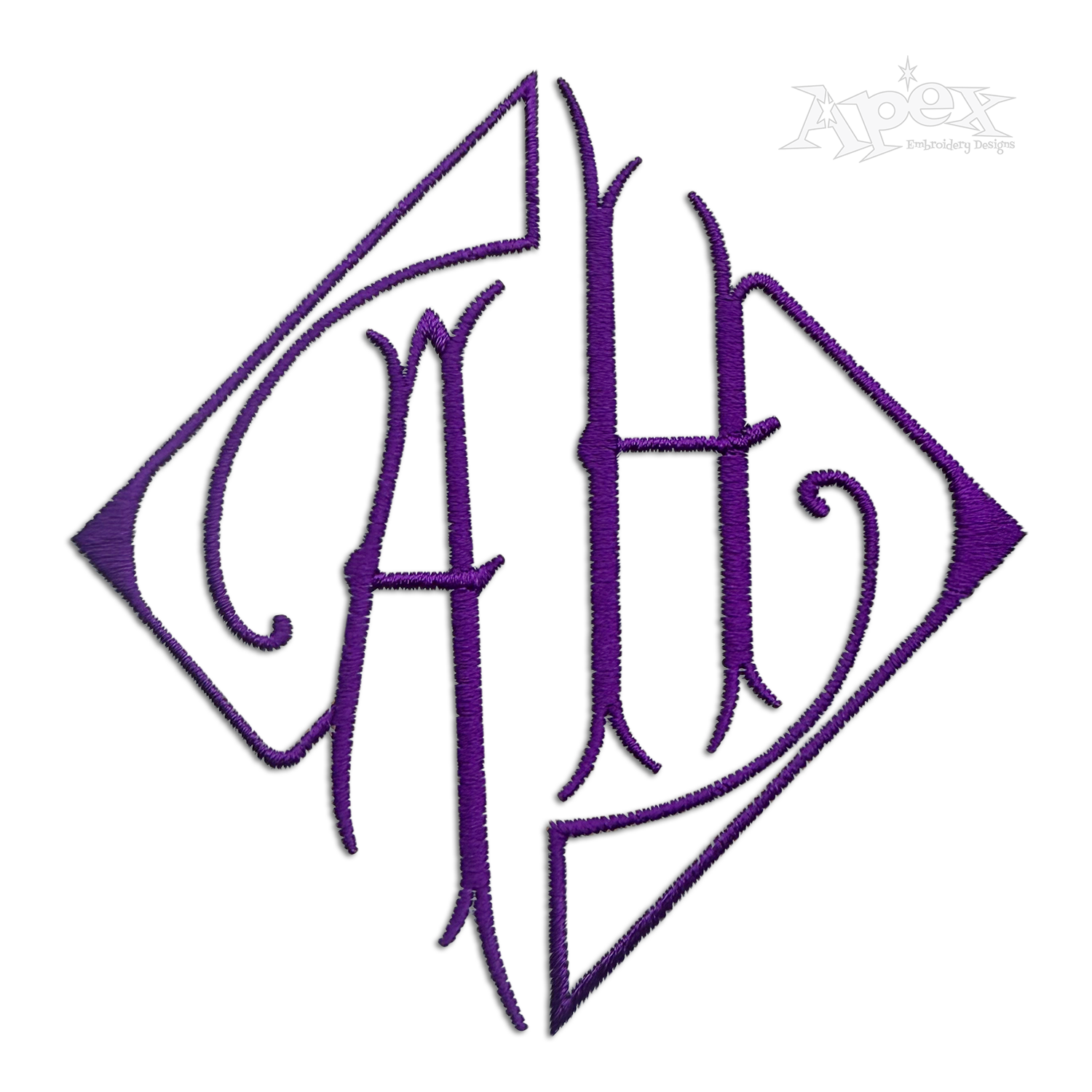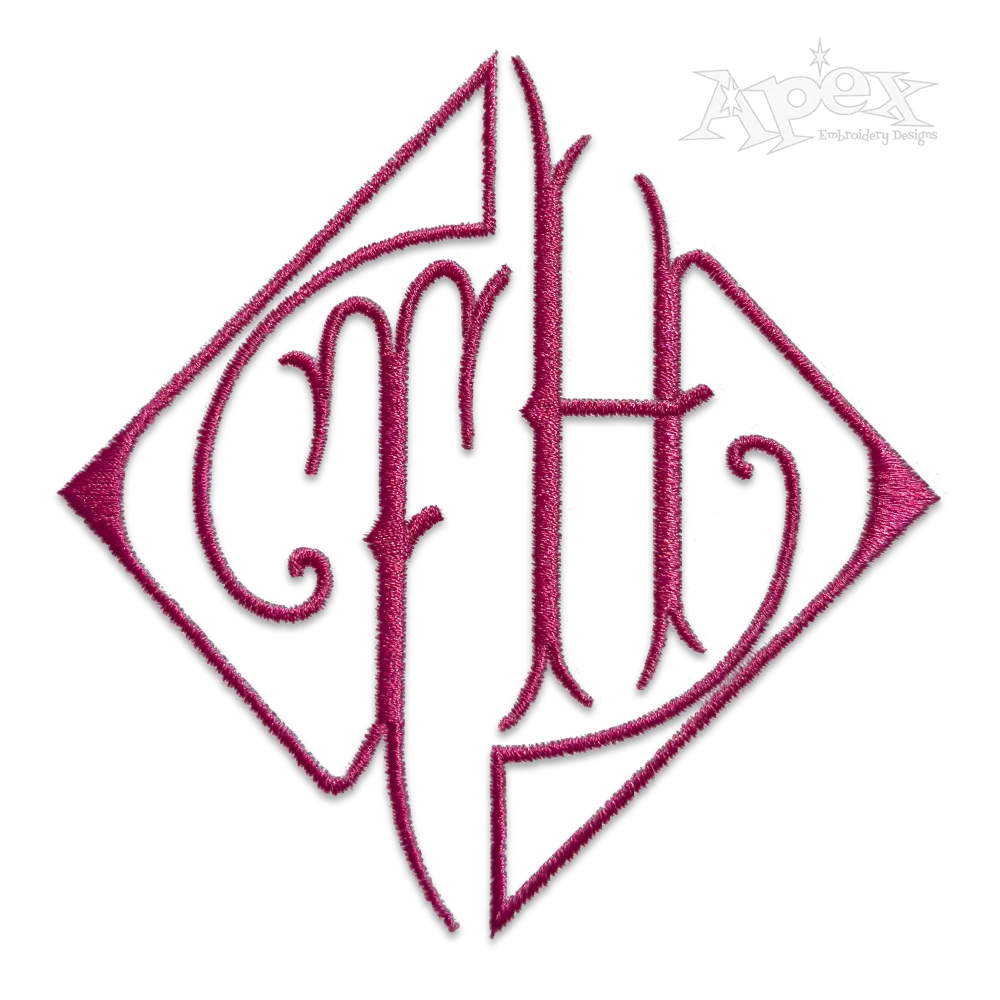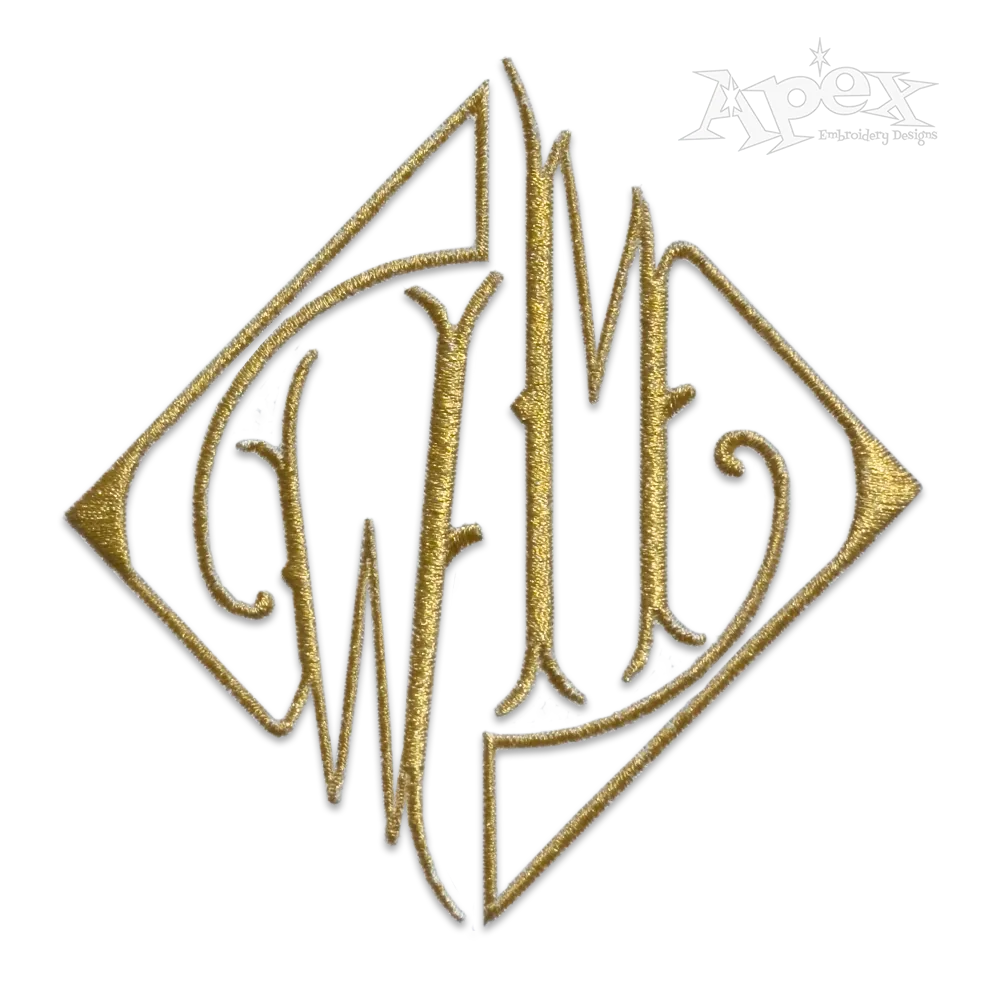
Triangle Two Monogram Embroidery Fonts
When digitizing the Triangle Two Monogram, our studio drew inspiration from the sharp geometry of vintage art deco jewels intertwined with the soft, flourishing tendrils of classical calligraphy. There is a captivating tension in framing sweeping, graceful swirls within a structured triangular silhouette. As your embroidery needle glides across fabric, these contrasting elements harmonize?transforming negative space into an exquisite tapestry of heirloom-grade luster. Designed for discerning makers who appreciate both modern architectural balance and timeless romance, this monogram brings an unmistakably bespoke flair to personalized keepsakes and refined home textiles.
Project Ideas for Triangle Two Monogram
The distinctive angular architecture and interior flourish of this monogram lend themselves to both tailored and opulent fabrications:
- Luxury Table Linens: Frame dinner parties with crisp mitered-corner linen napkins and dramatic table runners featuring a single, striking initial.
- Bespoke Resort Wear: Embroider crisp linen button-downs, swim cover-ups, and sun hats for an upscale, personalized getaway wardrobe.
- Heirloom Bedding & Bath: Elevate Egyptian cotton duvet covers, euro shams, and plush Turkish bath towels with a bold, centered crest.
- Bridal & Milestone Keepsakes: Accent silk bridal robes, ring pillows, or champagne tote bags for unforgettable, personalized gifting.
- Canvas Weekend Totes: Add an unmistakable mark of sophistication to heavy cotton canvas duffels, tennis totes, or boat bags.
Because of its unique geometric apex, the Triangle Two Monogram naturally anchors fabric surfaces with clean architectural lines:
- Corner Diagonal: Angle the monogram 45 degrees into the bottom right corner of linen cocktail napkins or handkerchiefs for a classic bespoke presentation.
- Center Chest Crest: Position on the left chest of tailored shirts, robes, or knit vests, keeping the peak of the triangle aligned directly beneath the collarbone.
- Pillow Centers: Float the 4-inch motif in the dead center of a boudoir cushion or pillow sham, letting the open swirls breathe against textured linen or velvet.
- Flap & Hem Accents: Stitch neatly onto cosmetic bag flaps, guest towel borders, or the bottom hem of a crisp linen throw.
Triangle Two Monogram Craft & Letterform Details
True embroidery elegance is defined by how light interacts with thread, and our digitizing for the Triangle Two Monogram honors that craft at every turn. We meticulously mapped the column widths of every curling flourish to ensure smooth, continuous stitch flow without unseemly jumps or stitch crowding. The outer perimeter creates the crisp illusion of a clean triangle, yet the interior reveals voluptuous, undulating satin curves that taper to needle-fine points. Rich underlay stitching supports each column from beneath, preventing fabric puckering and allowing the glossy top thread to catch the light like polished gemstone facets. Whether stitched in tone-on-tone silk or gleaming metallic thread, each letter stands as a masterwork of balanced tension, fluid momentum, and timeless beauty.